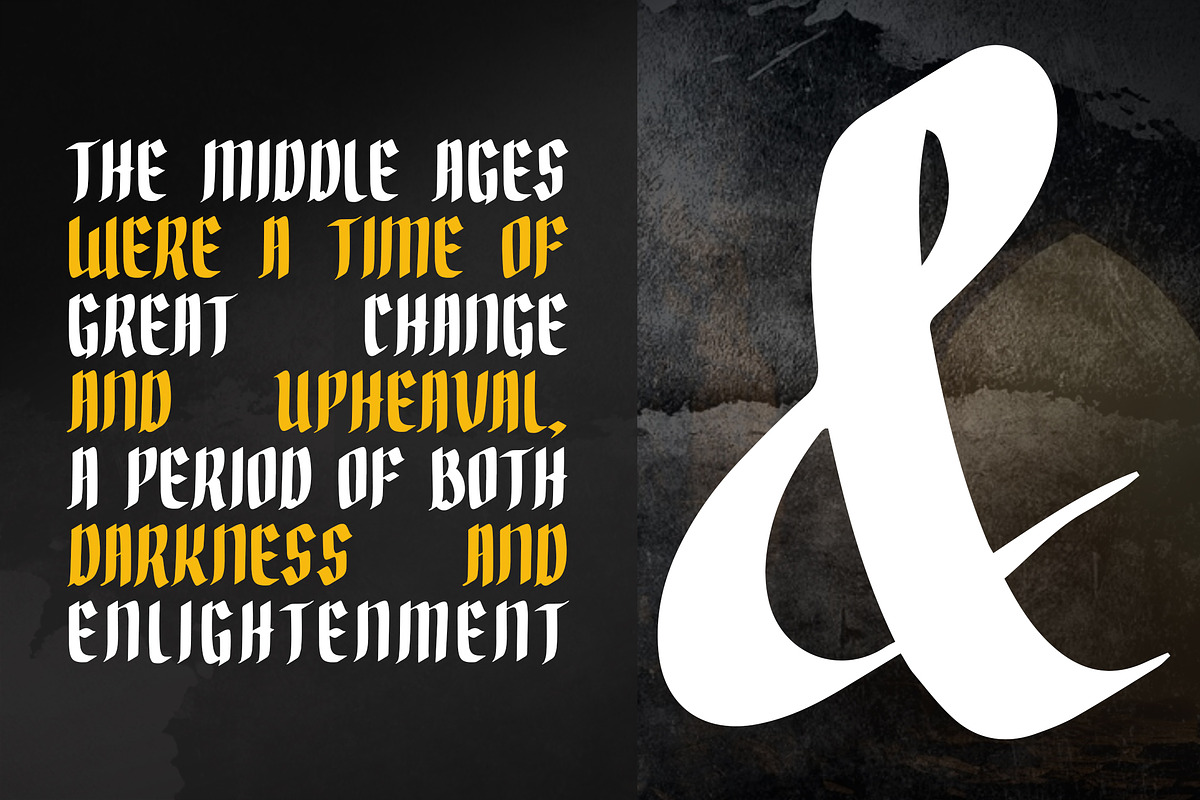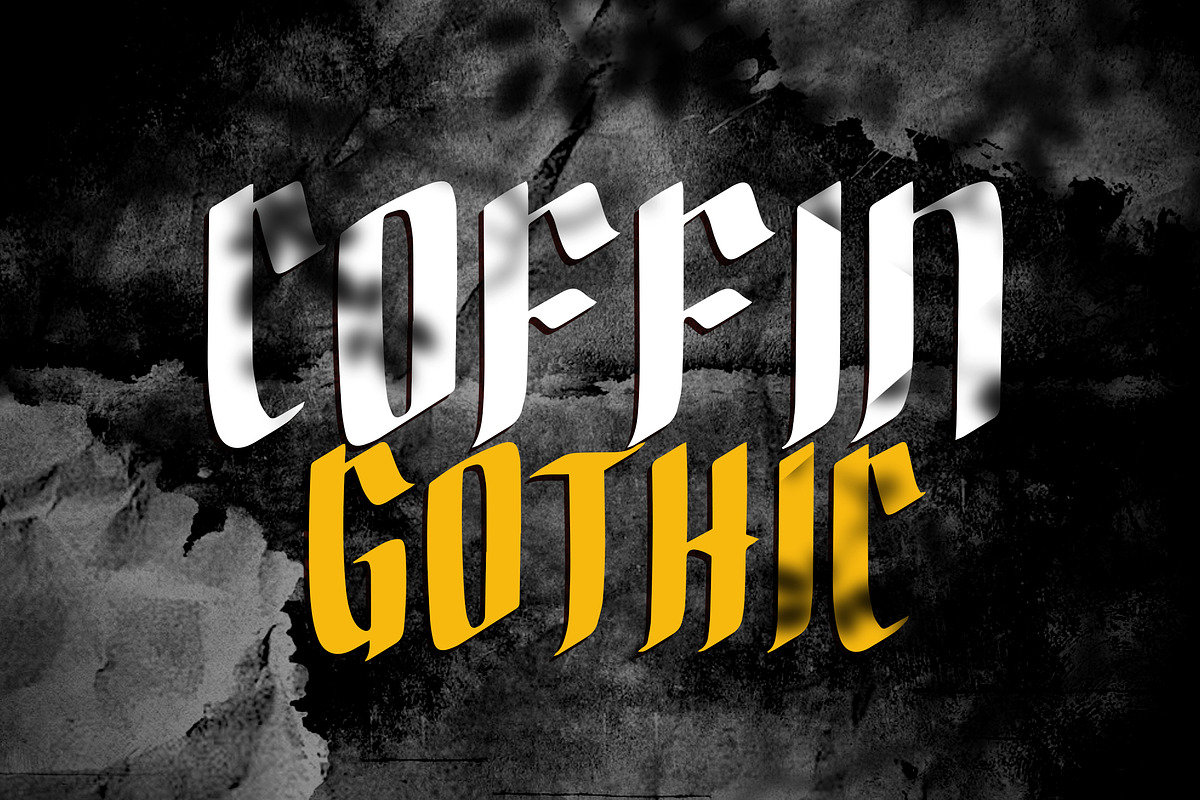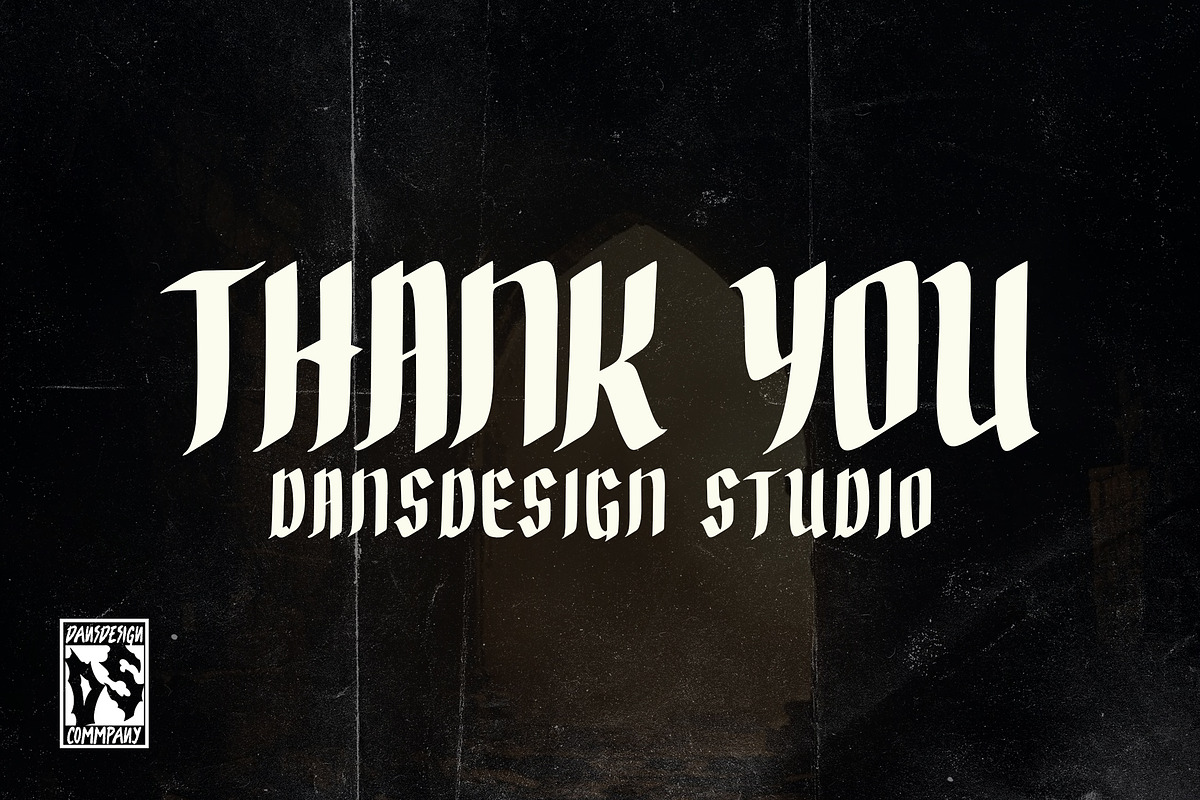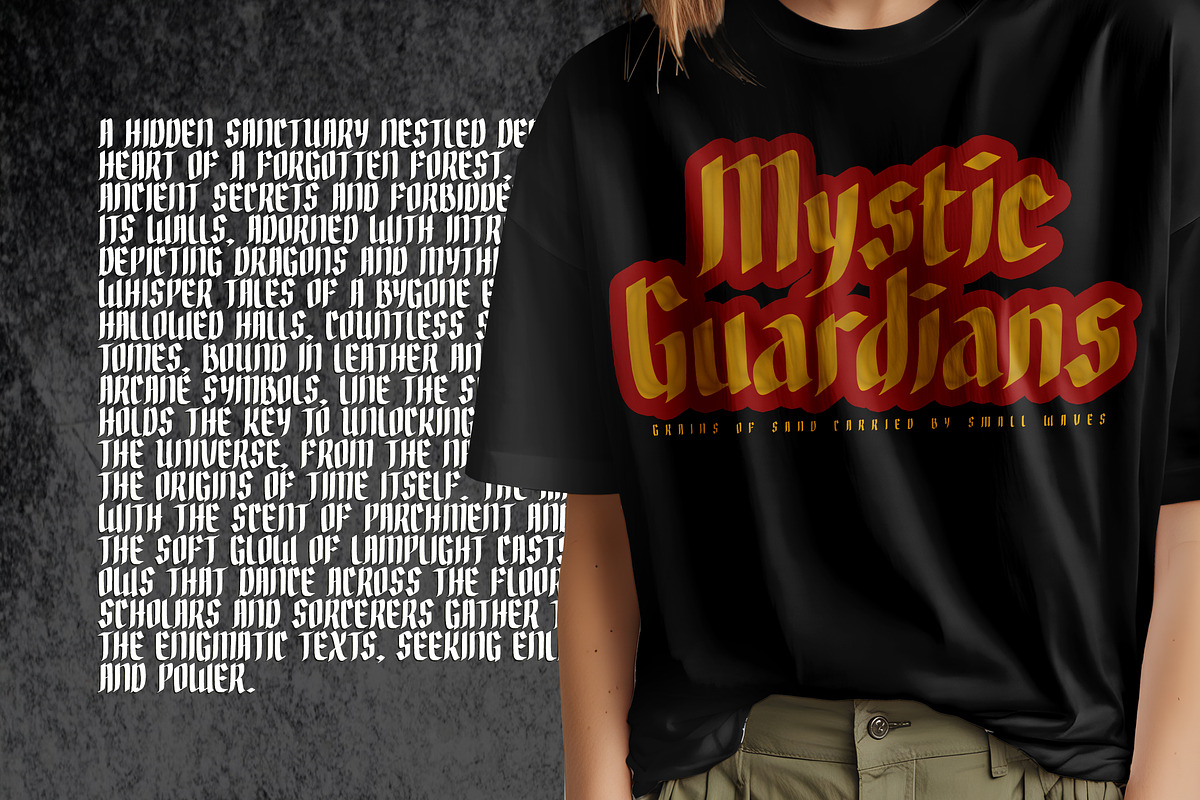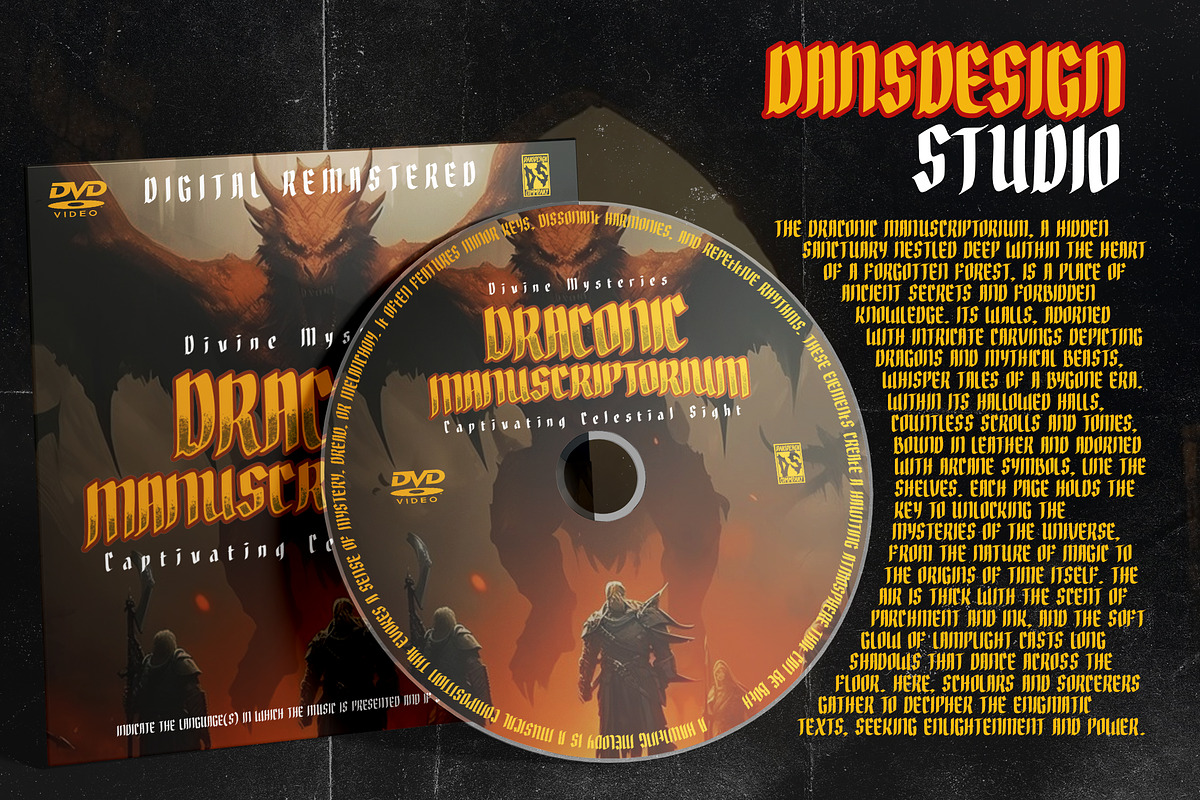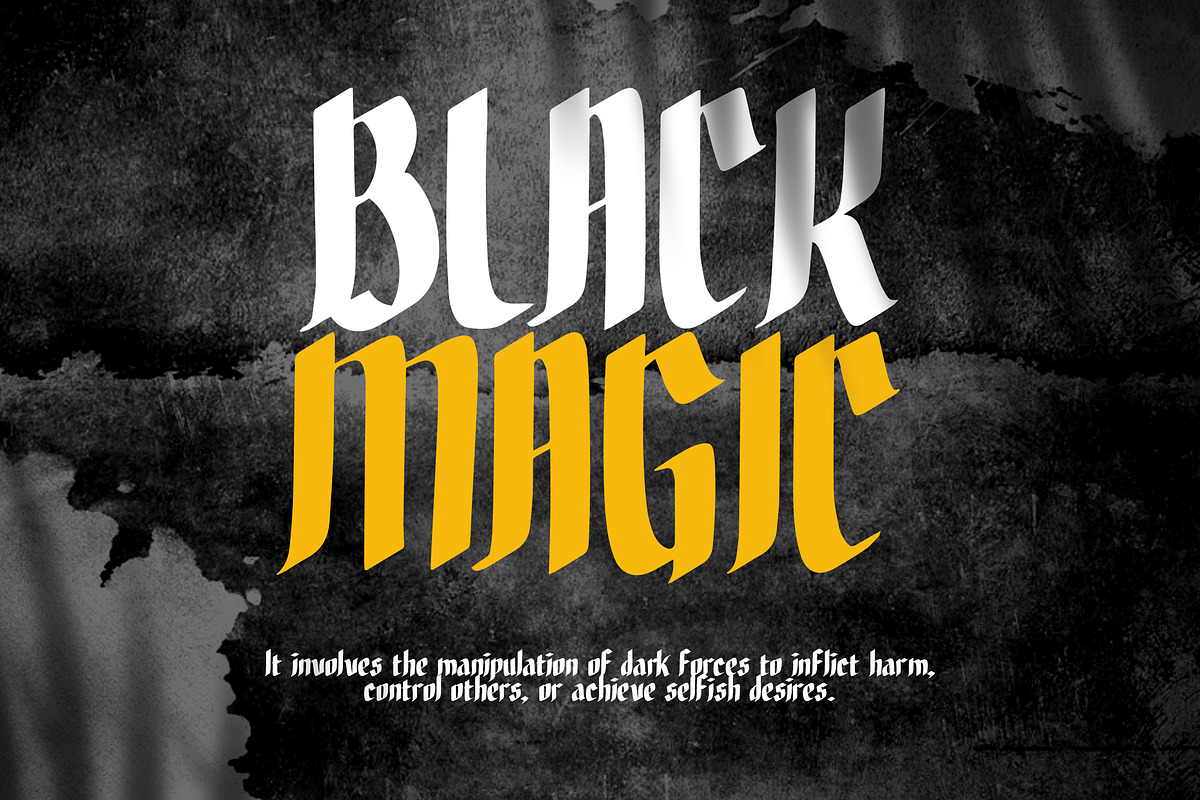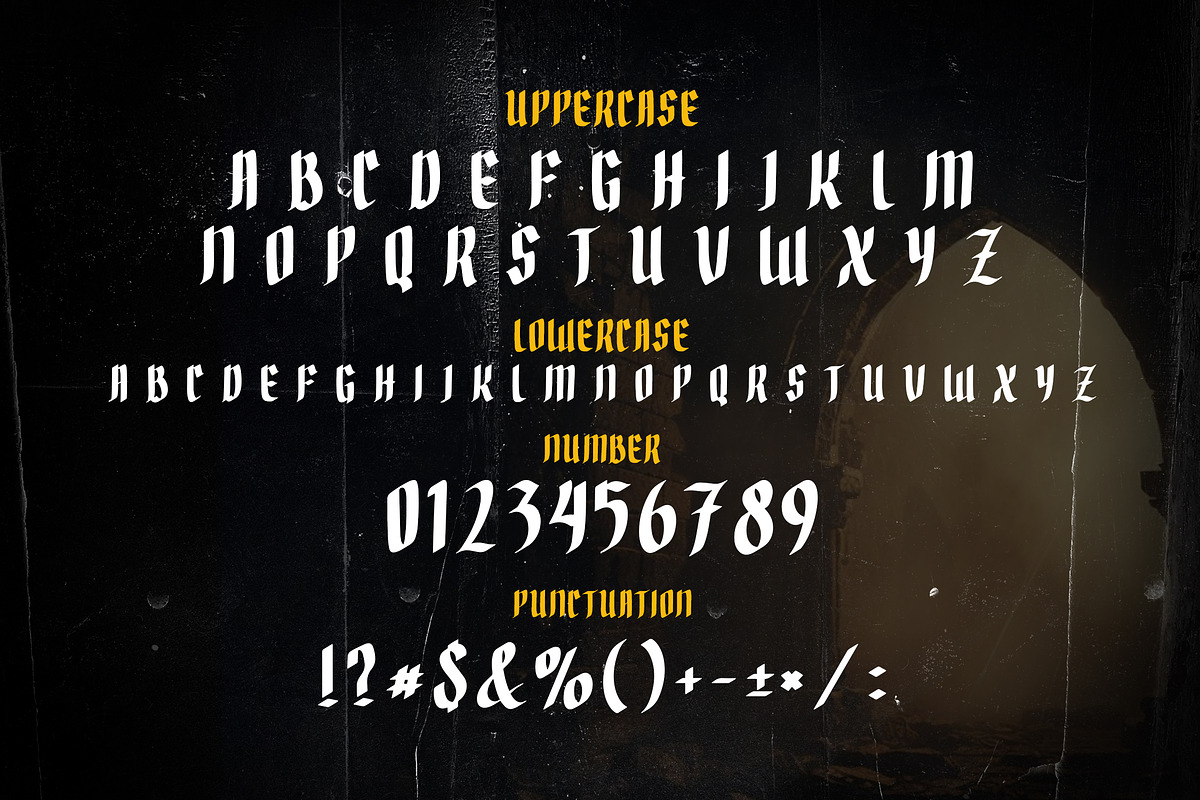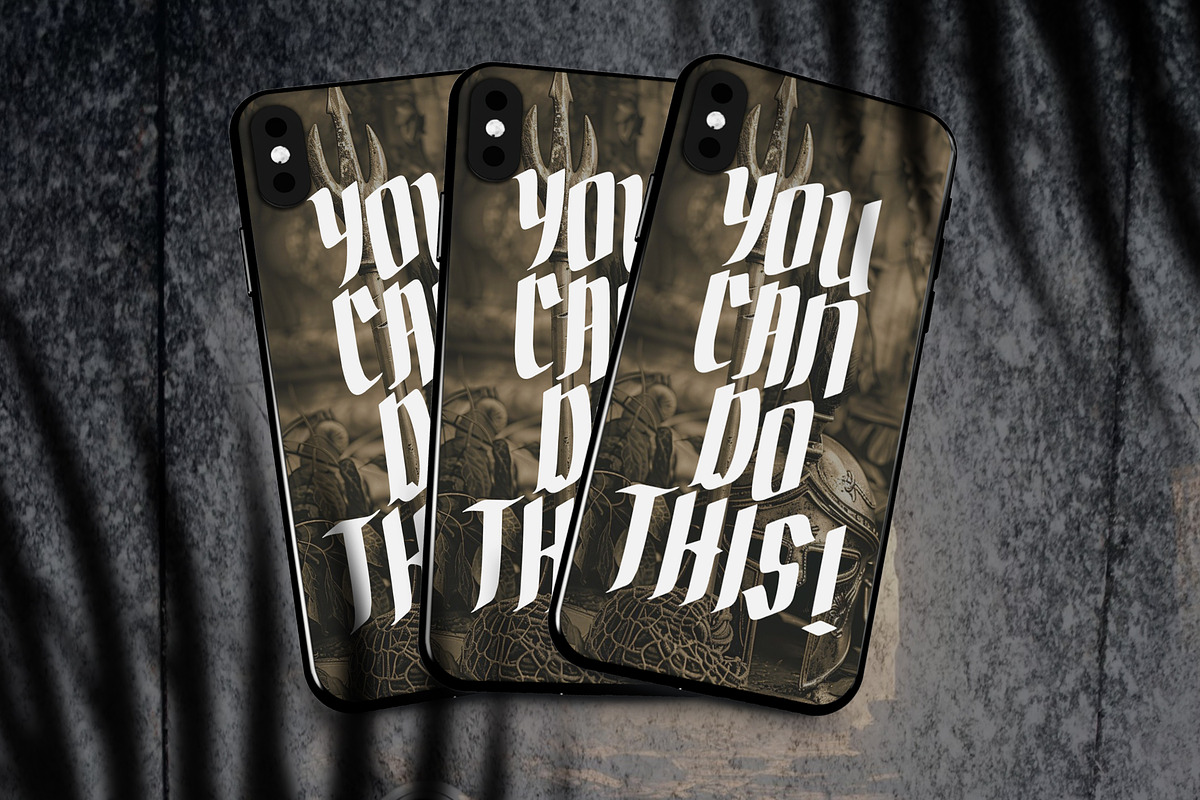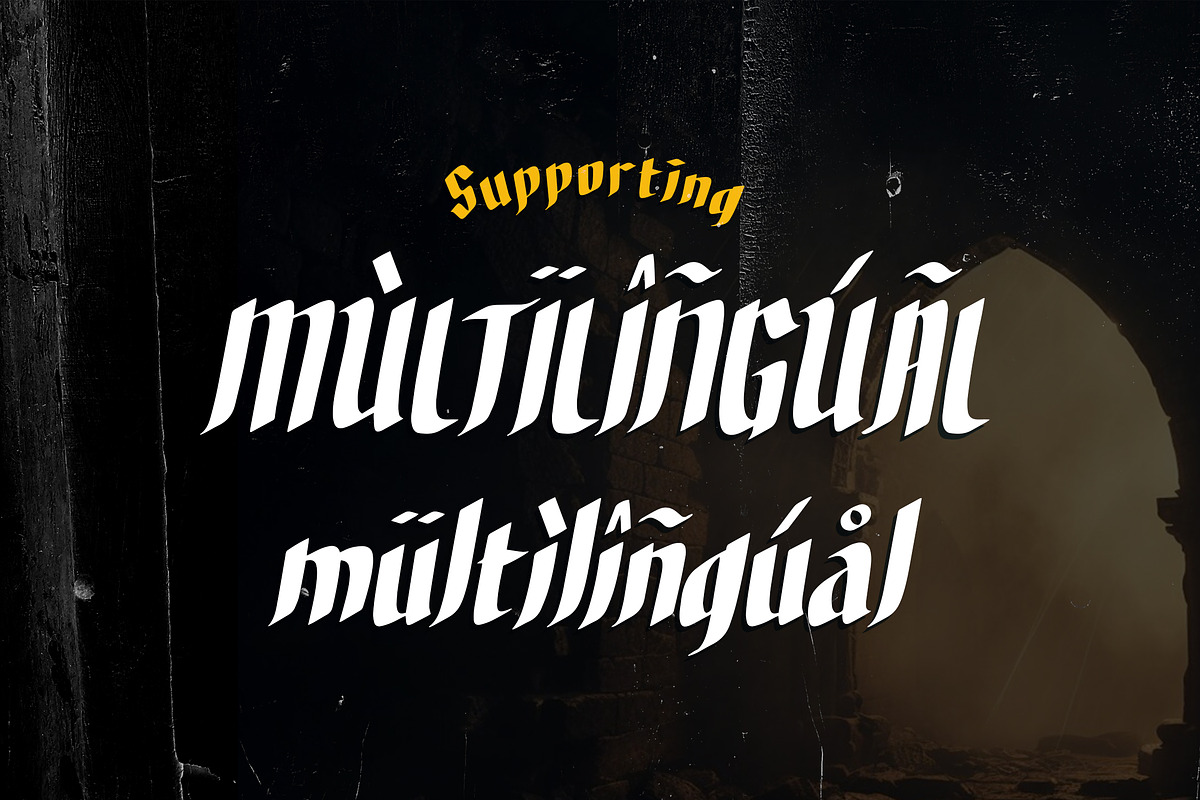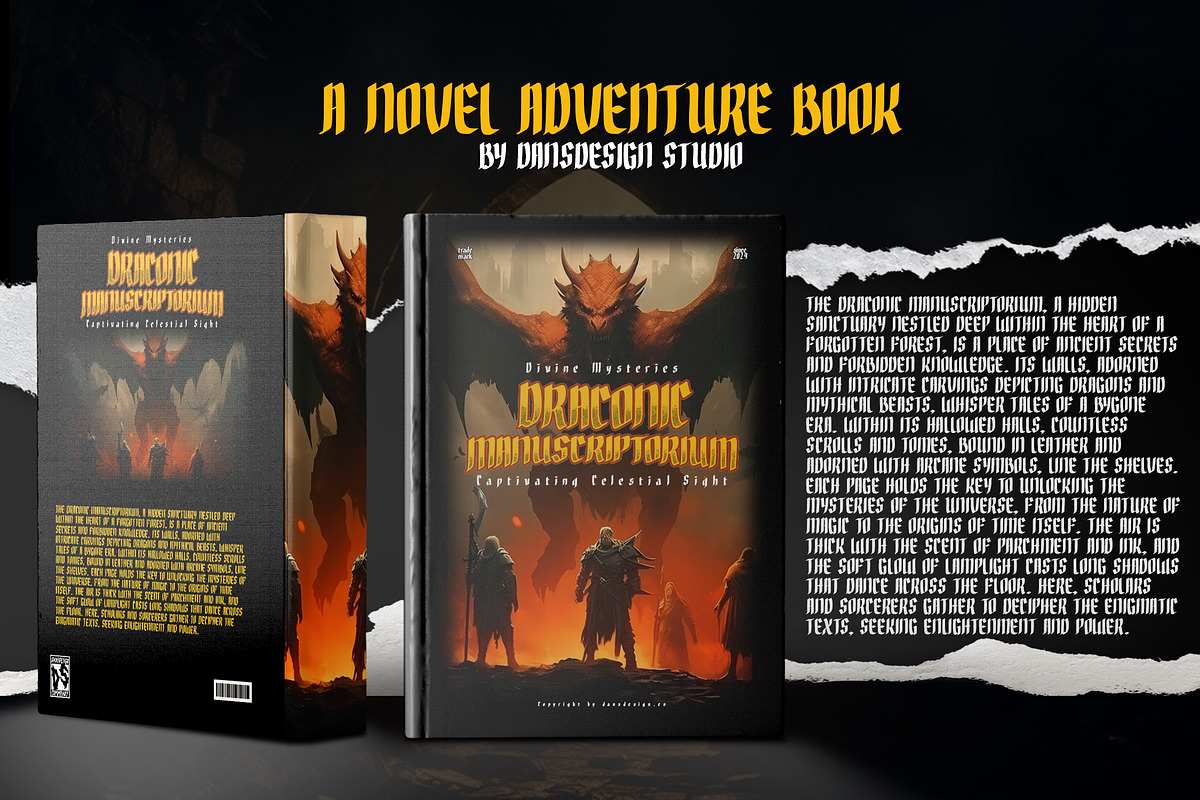
Scrivener Handwritten Blackletters
Scrivener Handwritten Blackletters Font is a distinct, highly detailed, and Horror Metal Font font. It would make a great choice for exquisite Music, Poster, retro-urban designs, tattoo business branding, logos, vintage designs, and more.
Featured : Accents (Multilingual characters) PUA encoded Numerals and Punctuation (OpenType Standard)